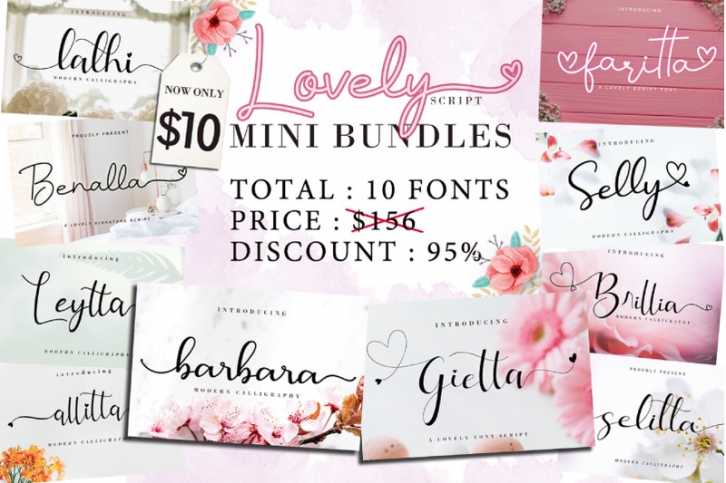
Introducing, Lovely Script Font Bundle
This bundle is perfect for many different projects such as wedding, crafting, branding, heading, logos, stationery, social media posts, photography, watermark, special events, advertisements, labels, and many more!